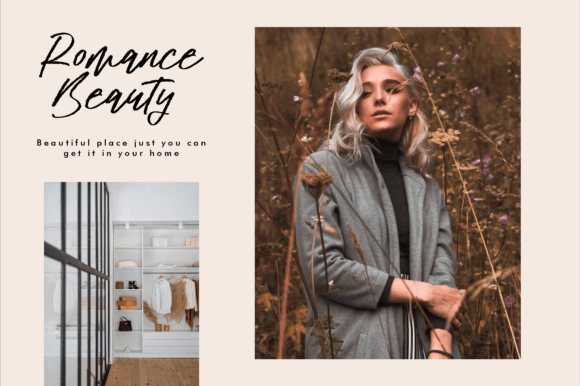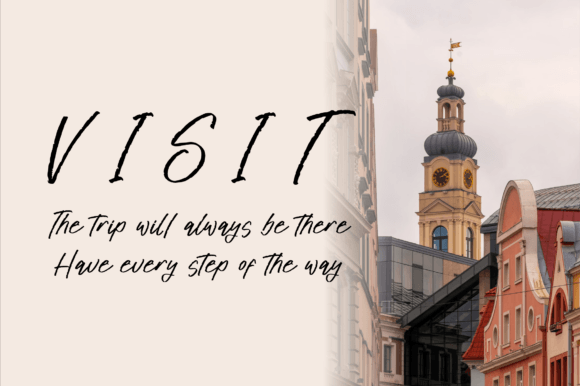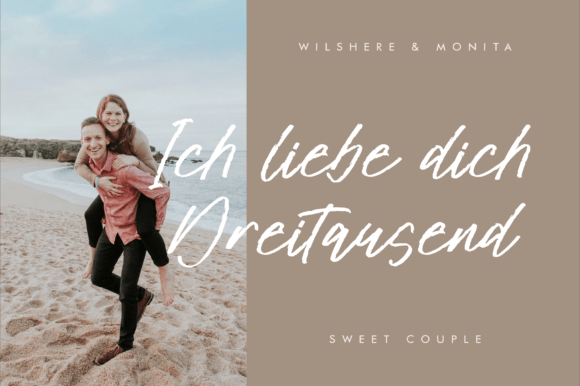
Introduction to Sintalina Monetha Font
Imagine you’re working on a creative project, pouring your heart and soul into every detail. You’ve crafted a beautiful design, but something’s missing – a touch of elegance that elevates it to the next level. That’s where the Sintalina Monetha Font comes in, a modern brush font designed to bring sophistication and charm to your work.
| 👤 Author | Perspectype |
Developed by Perspectype Studio, this versatile font is perfect for a wide range of projects, from logos and branding to homeware designs, product packaging, and even book covers. Its high-quality design makes it an invaluable resource for designers, offering a unique and stylish touch that sets your work apart from the rest.
Key Features of Sintalina Monetha Font
- Unique, elegant script font design ideal for creative projects and personal expressions.
- Designed to be versatile and suitable for a wide range of applications, from invitations to digital media.
Honest Review: Sintalina Monetha Font
I recently stumbled upon the Sintalina Monetha Font and was excited to give it a try. As a designer, I’m always on the lookout for high-quality design resources that can elevate my creative projects.
Here’s what works well: ✨ The font is highly customizable, making it perfect for designers who like to experiment with different styles. It’s also incredibly versatile, suitable for both digital and print projects. The Sintalina Monetha Font is a free download, which is a definite bonus for designers on a budget.
However, there are some limitations: ⚠️ The font may not be ideal for projects that require a transparent background, as it can be a bit tricky to achieve a seamless blend. Additionally, some users may find the font’s design to be a bit too ornate for certain projects.
Overall, I’d say the Sintalina Monetha Font is a solid addition to any designer’s toolkit. It’s a high-quality resource that can add a touch of elegance to any creative project. With a little bit of tweaking, it’s definitely worth considering for your next design project.
- Perfect for: Creative projects that require a touch of elegance
- Not ideal for: Projects that require a transparent background
- Key features: Highly customizable, versatile, free download
The Sintalina Monetha Font is ideal for a variety of design projects, including business cards, letterheads, and brochures. Its unique design and high-quality format make it a popular choice for designers looking to add a touch of elegance to their work.